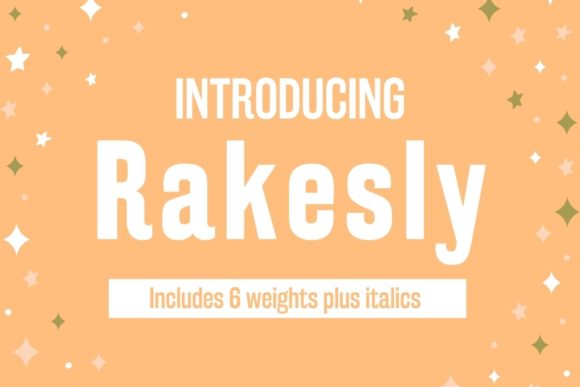
Rakesly
About Rakesly Font
Rakesly is a sans serif font that is inspired by the grotesque headliners from the 19th century. This font includes 6 weights plus italics which makes it extremely versatile for your projects.